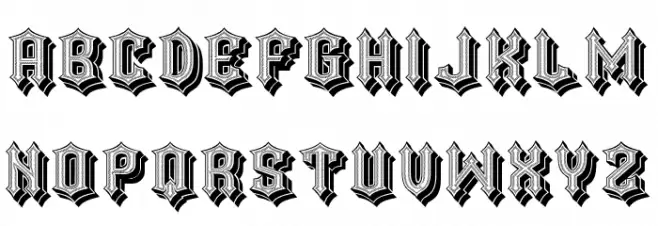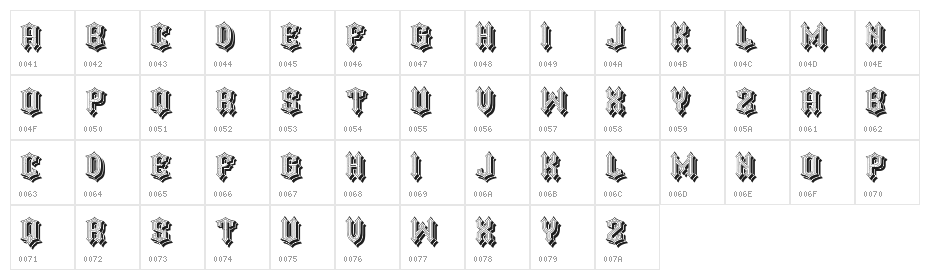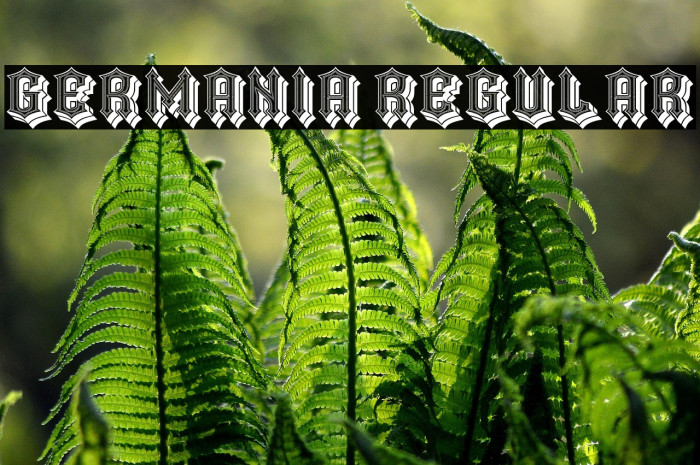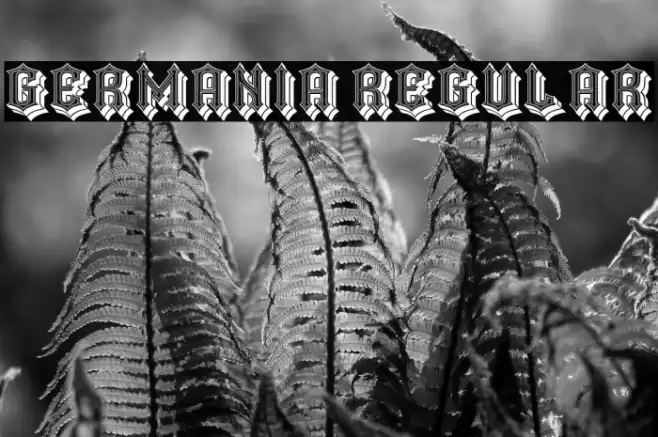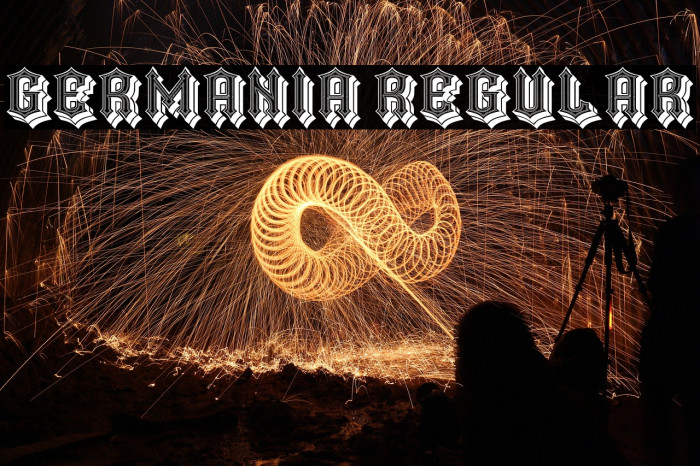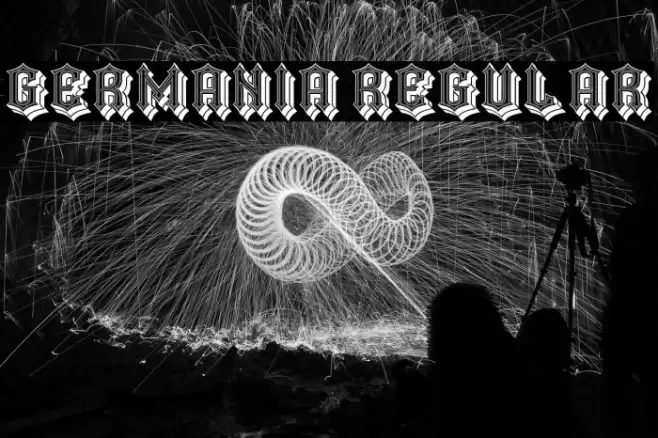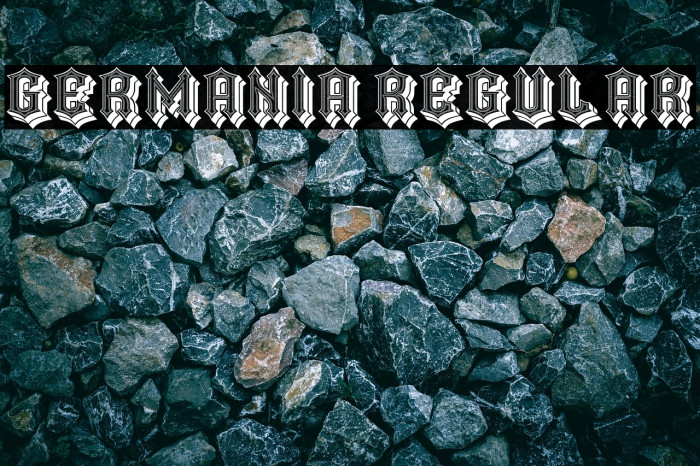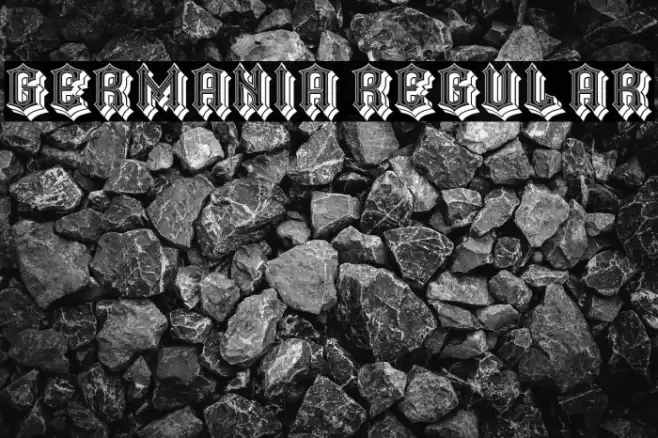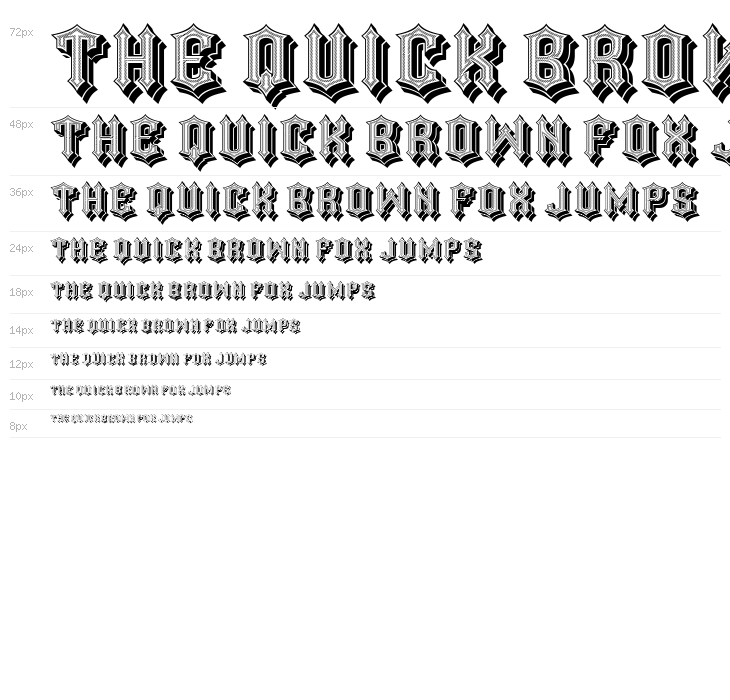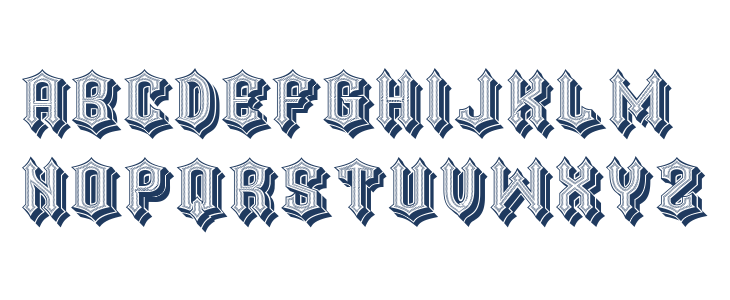
Germania Regular Font
Germania Regular Description
This font exhibits a bold and intricate design, reminiscent of traditional Gothic or Blackletter styles. The characters are highly decorative, featuring sharp angles and elaborate serifs that give them a dramatic and historic appearance. Each letter is adorned with ornamental details, enhancing its visual impact. The font's structure is robust, with a strong emphasis on vertical lines and pointed edges, creating a sense of grandeur and formality. The overall aesthetic is both classic and commanding, making it suitable for projects that require a touch of elegance and tradition.